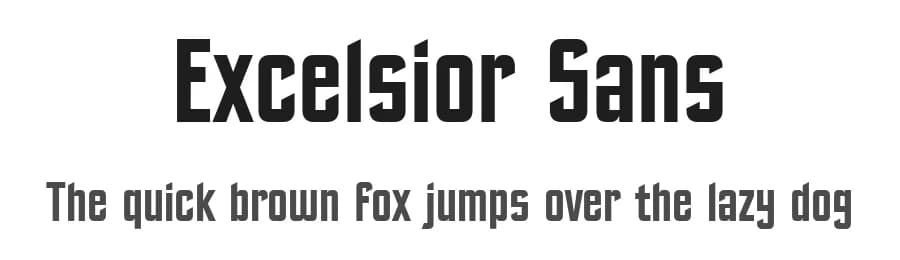
About Excelsior Sans Font
Excelsior Sans is a sans-serif font designed by AJ Paglia. It includes 86 glyphs, a regular weight, TTF (TrueType) format, and 104 languages. Excelsior Sans is free to download; check the license details on this page before commercial use. Sans-serif fonts like Excelsior Sans work best for clean body text, user interfaces, branding, and modern layouts.
Excelsior Sans Font is a versatile sans-serif font that works for both headings and body text. Pair it with a contrasting serif or slab serif font to add visual interest and a clear distinction between titles and body copy.
Excelsior Sans Font is a sans serif typeface by AJ Paglia, ideal for logos, invitations, branding, and creative projects.